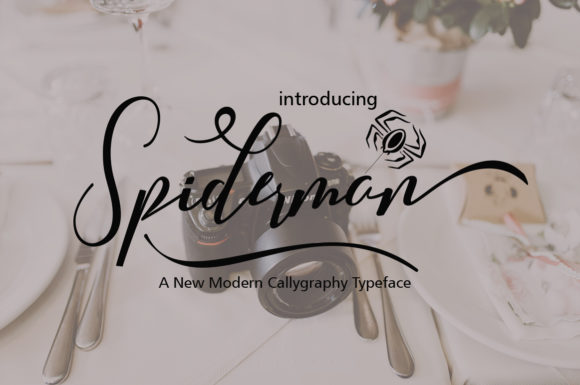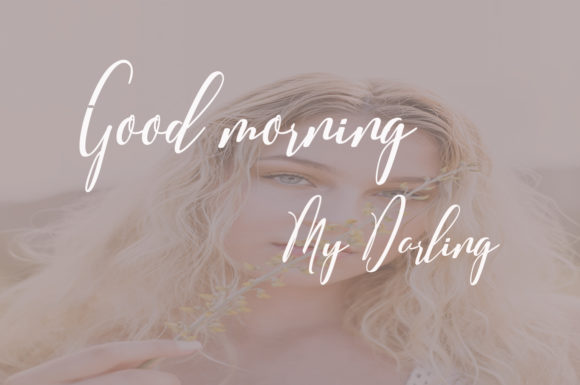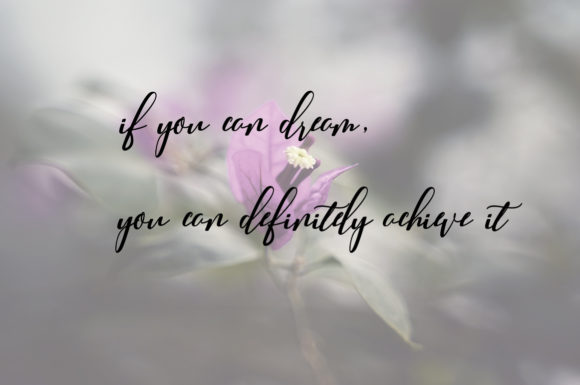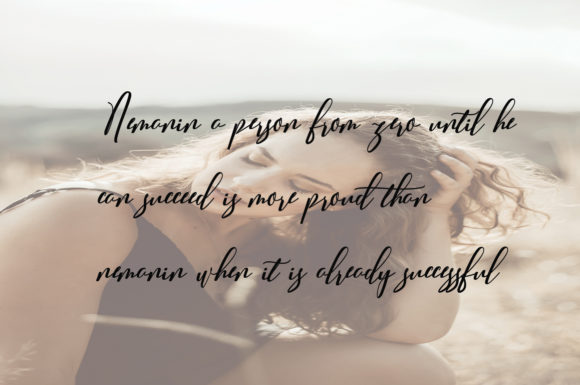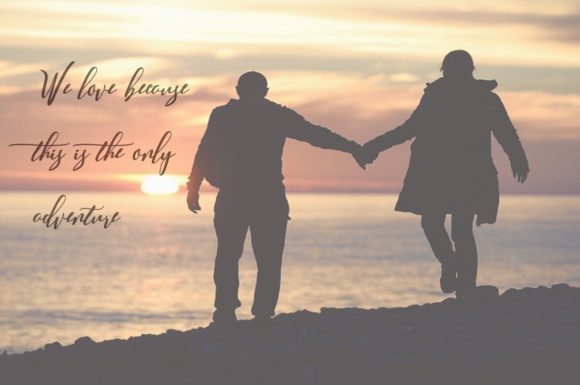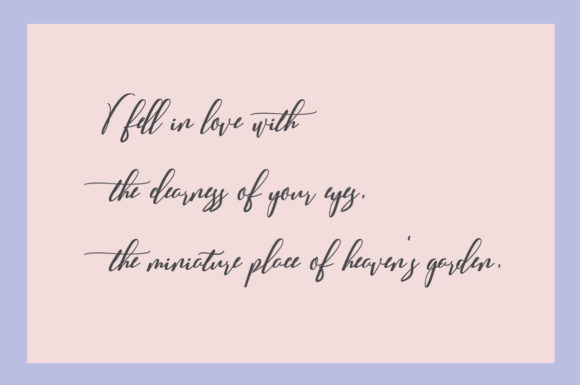
HomeScript FontsSpiderman Font Script Fonts Spiderman Font FacebookXPinterestWhatsApp Spiderman Font Poster 2 Spiderman Font Poster 3 Spiderman Font Poster 4 Spiderman Font Poster 5 Spiderman Font Poster 6 About Spiderman Font Inspired by classic calligraphy, Spiderman is a beautiful and unique font with an undeniably elegant feel. DOWNLOAD ON CREATIVE FABRICAThis font is sold and delivered by Creative Fabrica. Font Canyon may earn a commission if you buy through this link. People also explored Love is a Many Complicated Thing Font Fun Field Font Austaly Font Simple Mateure Font Lamoureux Font Hello Springtime Font Antha Font Blood Font Graby Script Font 300 0 TagsSpiderman Font Previous articleDockmaster FontNext articleAdinda Font LEAVE A REPLY Cancel reply Comment: Please enter your comment! Name:* Please enter your name here Email:* You have entered an incorrect email address! Please enter your email address here Website: Save my name, email, and website in this browser for the next time I comment. Personal Use Free Mallvirra Personal Use Free Read more about this font Uchiyama Personal Use Free Read more about this font Playground Clip Art Personal Use Free Read more about this font Satori Personal Use Free Read more about this font BLOG Using Fonts in Digital Marketing: Tips to Strengthen Your Brand Identity In the realm of digital marketing, every visual element plays a crucial role in shaping a brand's identity, and fonts are no exception. The... Fonts That Capture the Spirit of New York City Top 7 Google Fonts Alternatives for Faster and Privacy-Friendly Web Design (2025) Free Fonts Risk: Why Free Fonts Can Be Dangerous for Designers